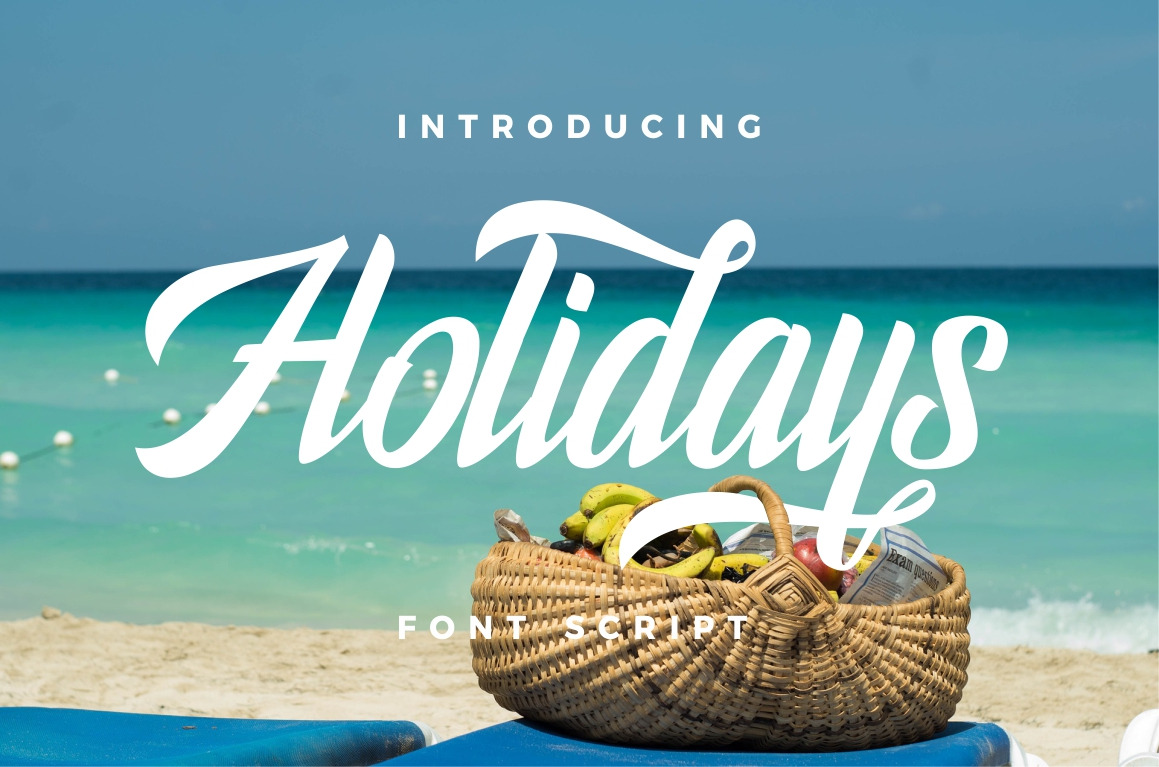
Holidays Typeface
Holidays Typeface is a beautyfull script font. Holidays Typeface Script features more then 100 stylistic alternate characters. Great for various purposes.such as logos, t-shirt, letterhead, posters, Wedding invitation, badges etc.
Holidays Typeface comes with uppercase, lowercase, numerals, punctuation, ligature and also multilingual characters.